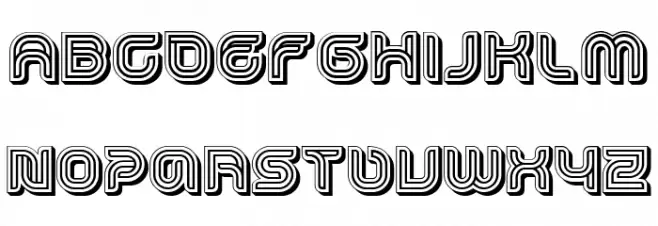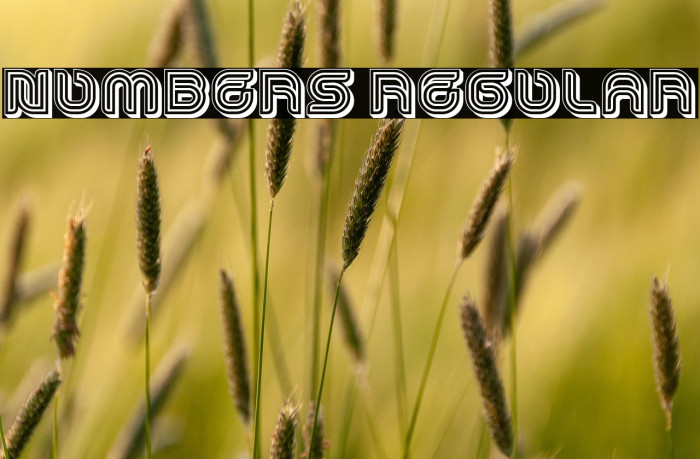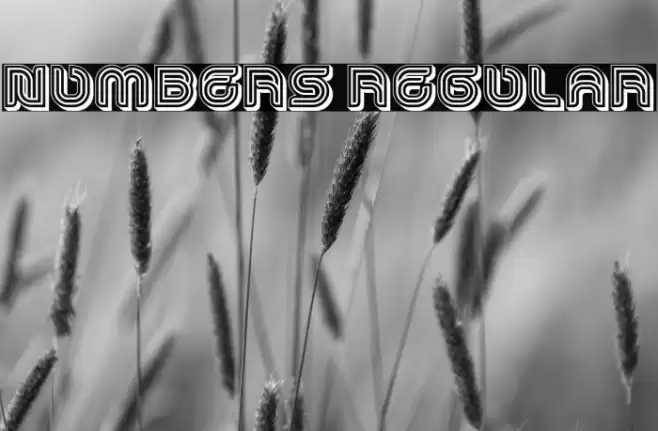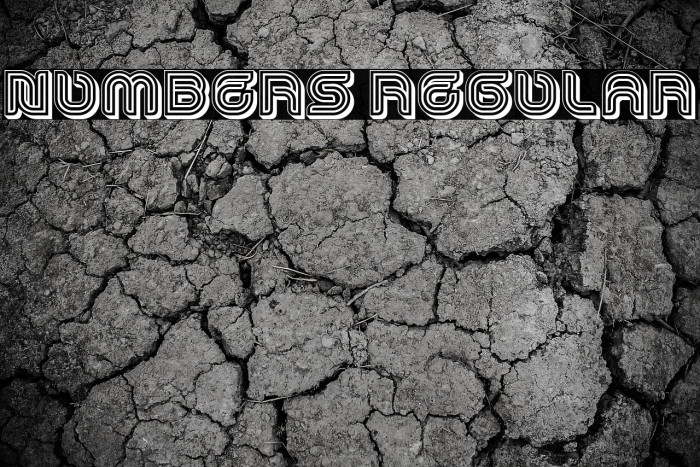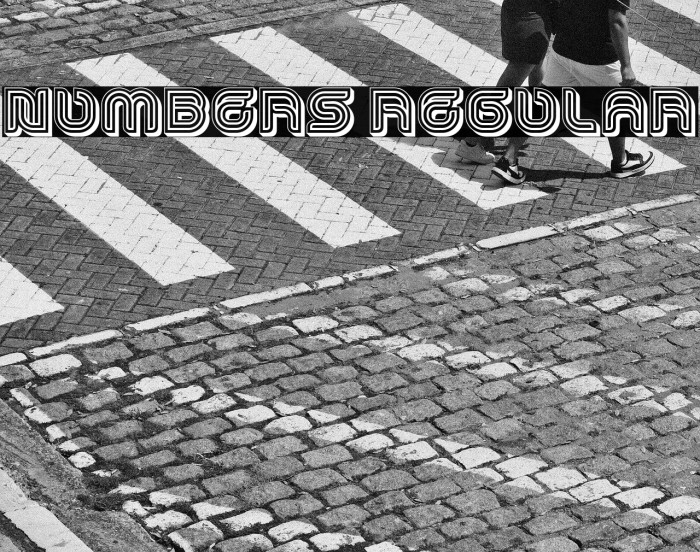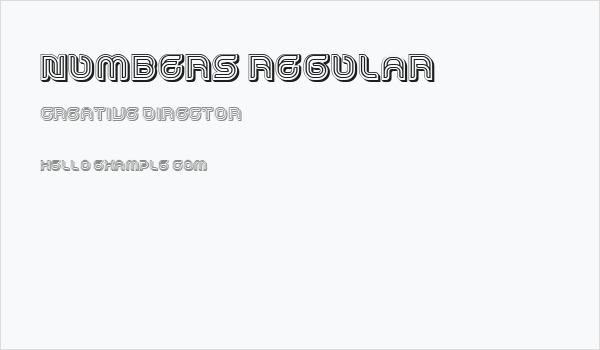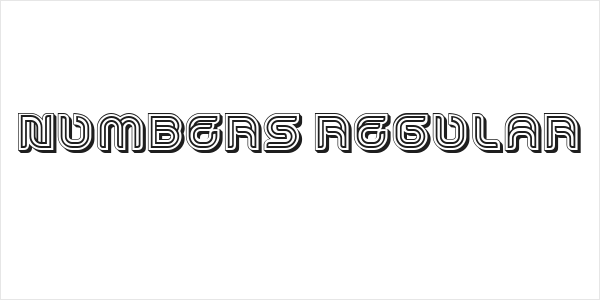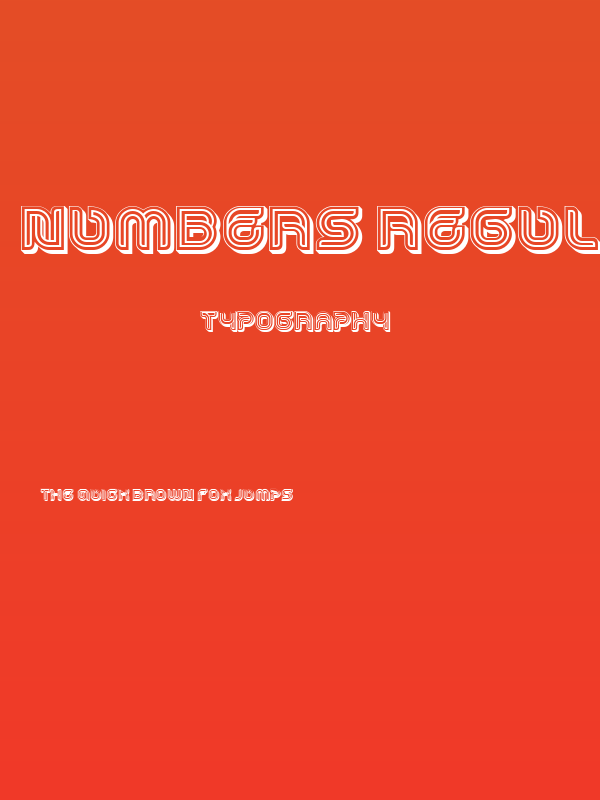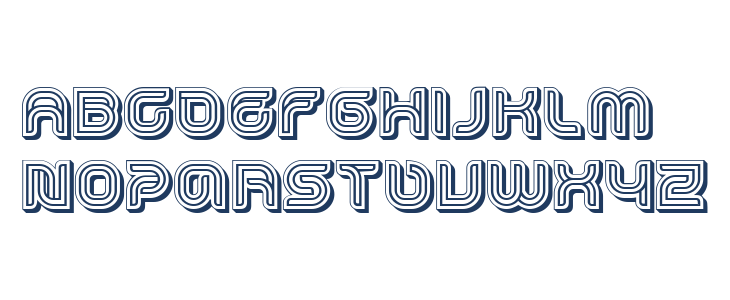
Numbers Regular Font
Numbers Regular Description
This font features a bold, decorative style with a unique layered outline effect that gives it a three-dimensional appearance. The characters are uppercase and exhibit a geometric structure with rounded edges, creating a modern yet playful aesthetic. The design is consistent across all letters, maintaining a uniform width and height, which enhances readability despite its intricate style. The font's distinct outline and shadow effect make it stand out, ideal for eye-catching designs.